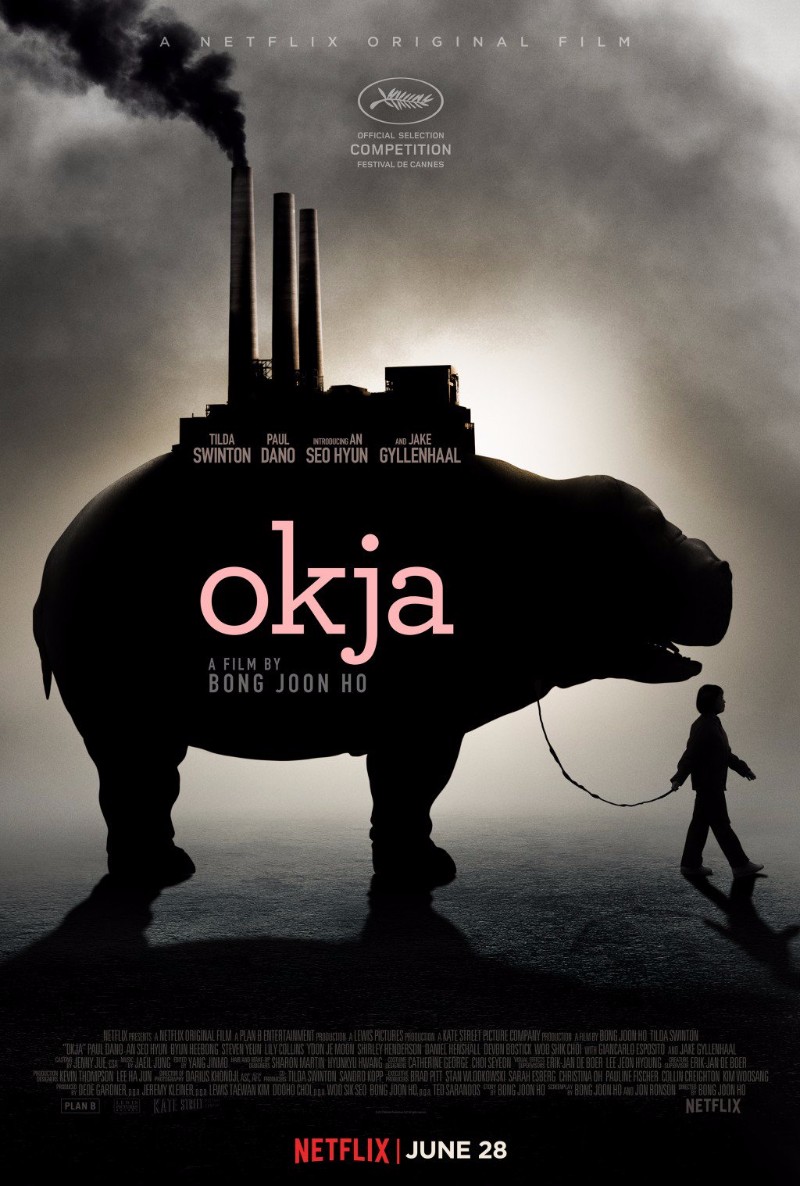
Okja (film) Font
ActionOkja is a 2017 action-adventure film directed by Bong Joon-ho and starring Tilda Swinton, Jake Gyllenhaal, and Paul Dano. The film follows the story of Mija, a young girl who sets out on a journey to rescue her beloved pet, a genetically modified superpig named Okja, from the clutches of the meat industry.
Okja film title in the poster, is written in Archer Medium. Tobias Frere-Jones and Jonathan Hoefler created Archer Medium in 2001 as a geometric slab serif typeface influenced by mid-century slab serif designs like Rockwell.